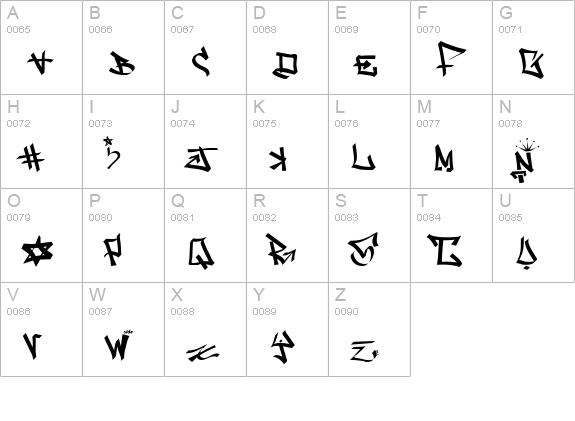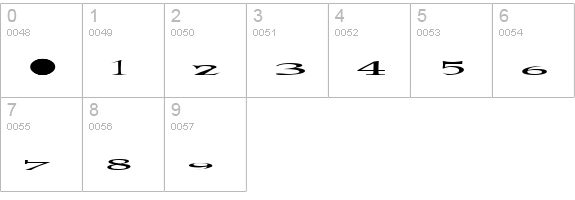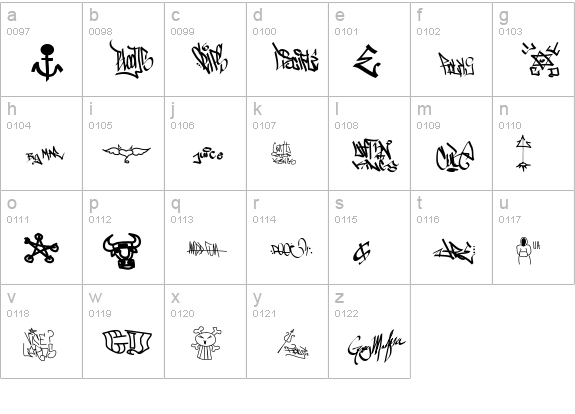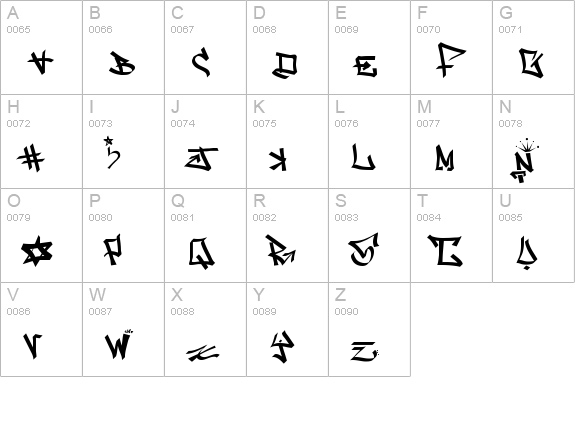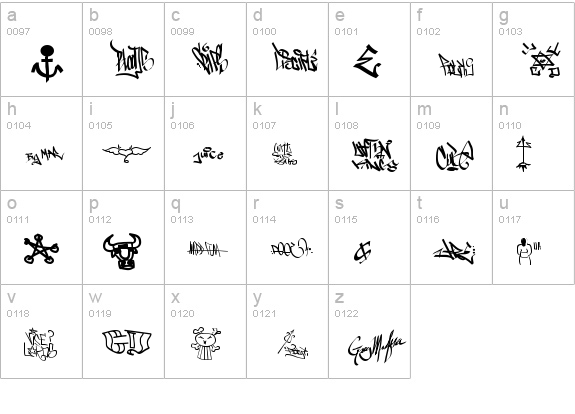
one8seven Font Details
Introducing the exquisite one8seven font, a captivating typeface that effortlessly combines elegance with modern design. With its sleek lines and stylish curves, this font is perfect for adding a touch of sophistication to any project. Whether you're working on branding, invitations, or any other creative endeavor, one8seven font is sure to make a lasting impression. The best part? This stunning font is available for free download at FontsMarket.com. Don't miss out on the opportunity to enhance your designs with the beauty and versatility of one8seven font. Download it today and let your creativity soar to new heights!